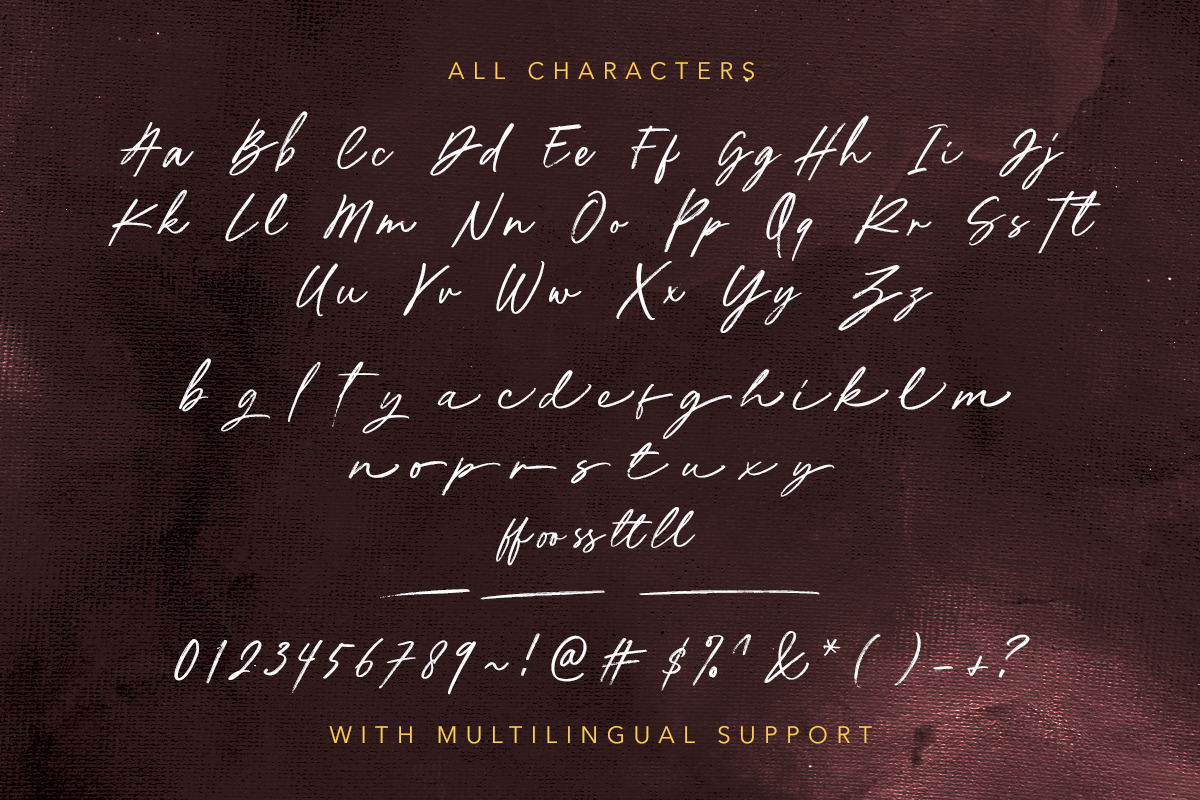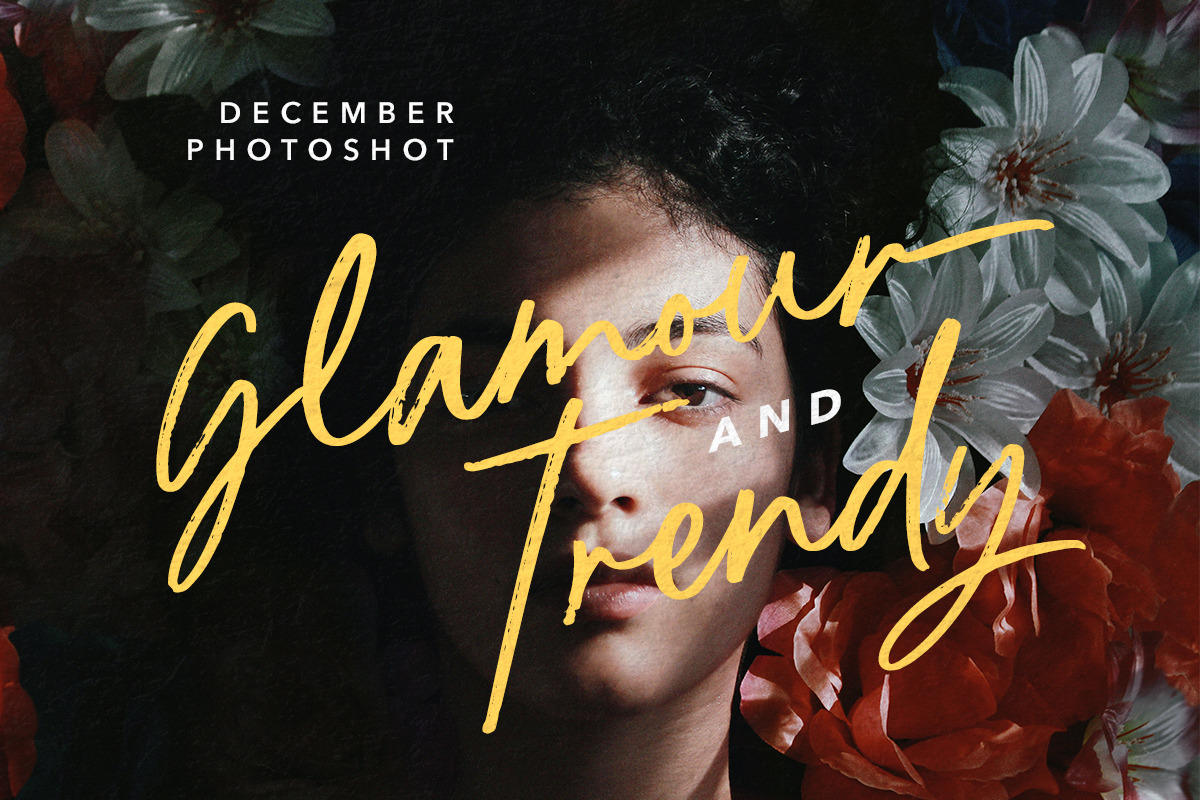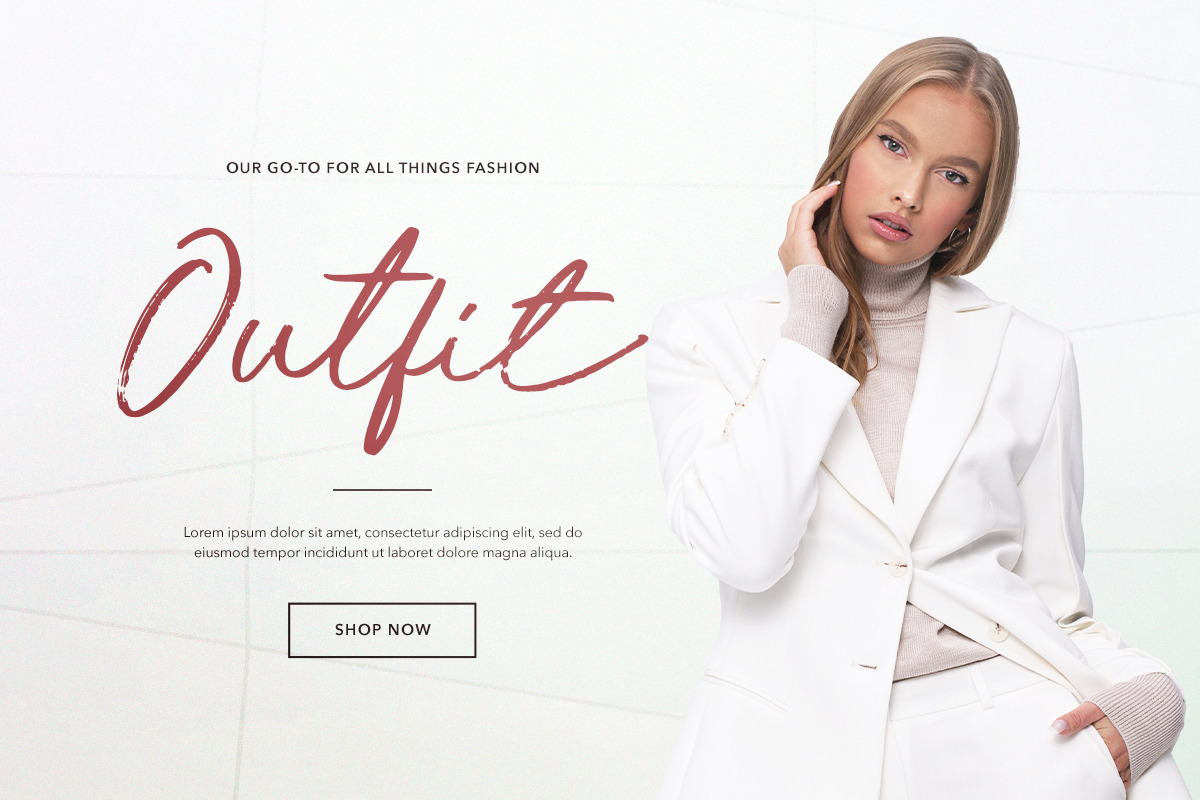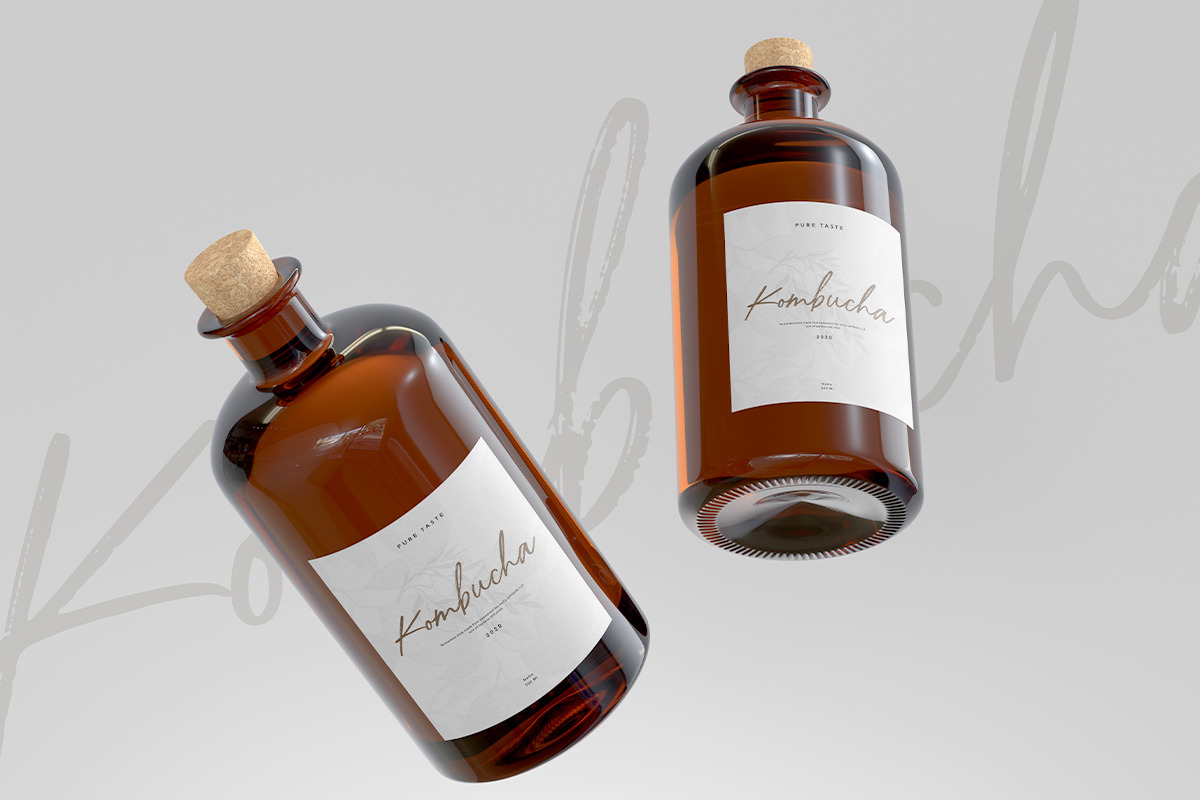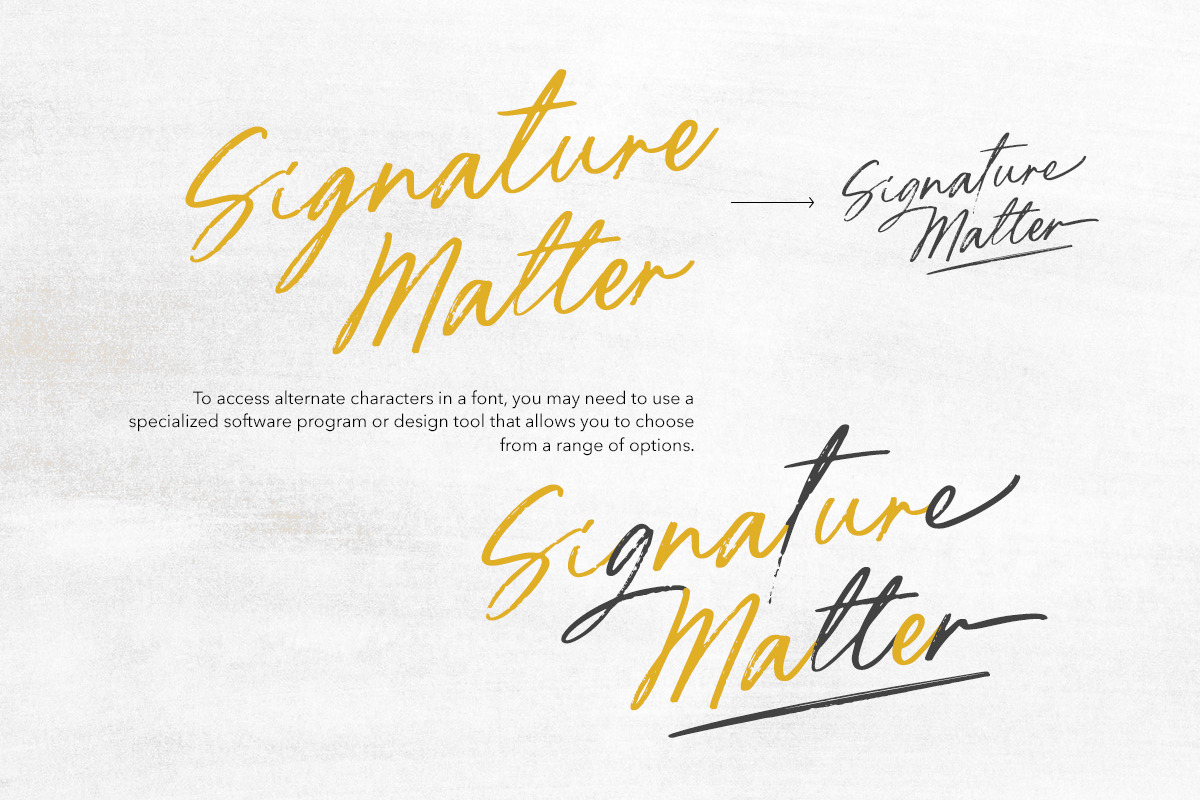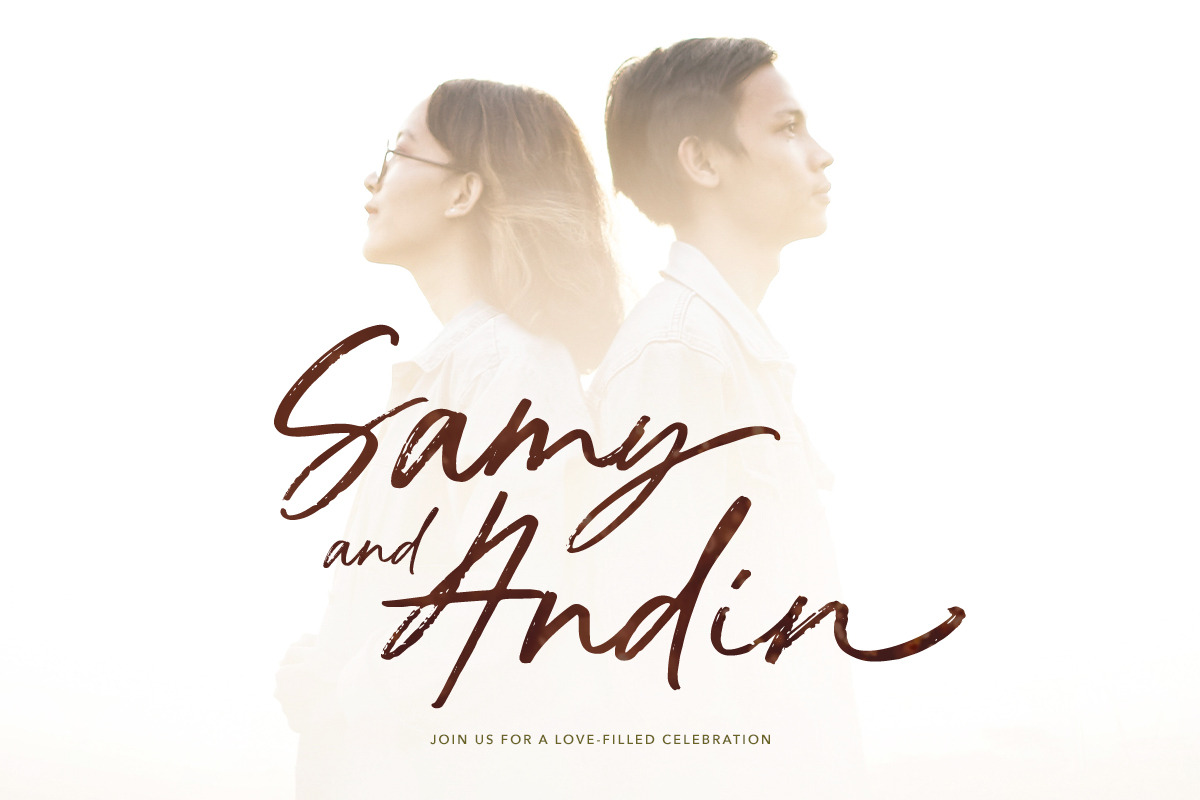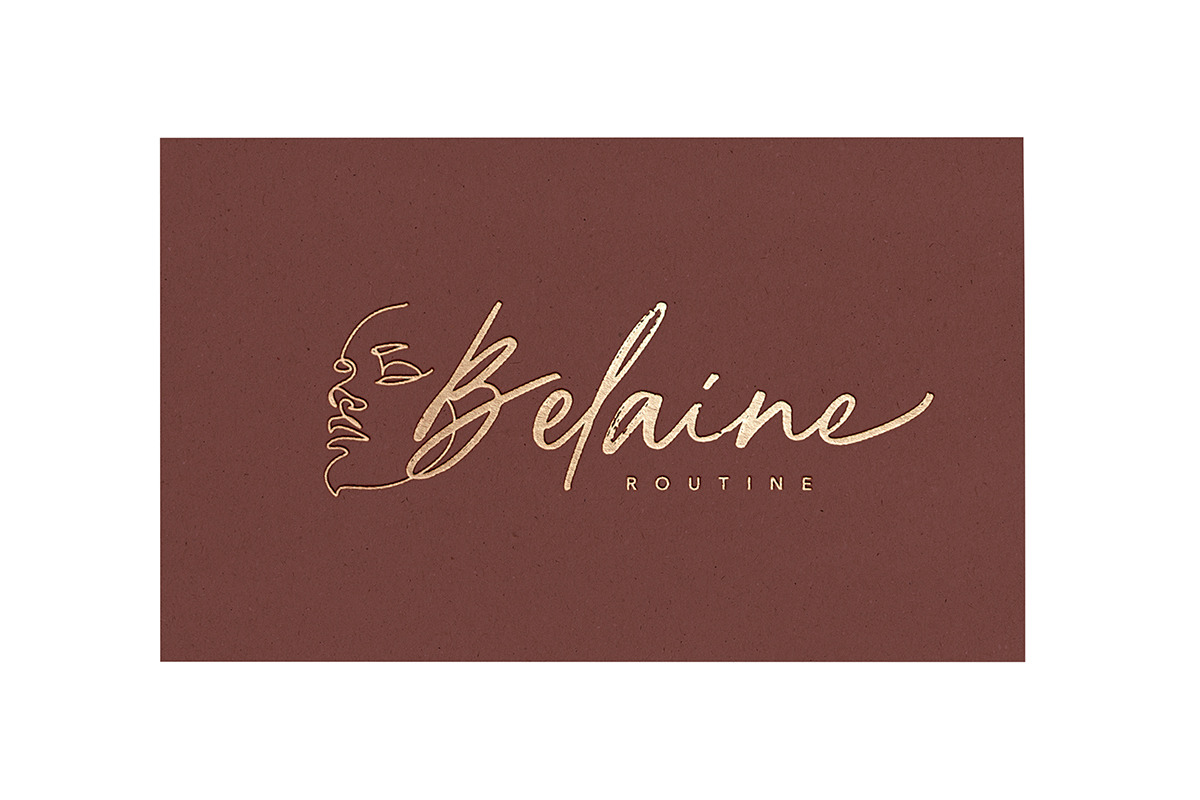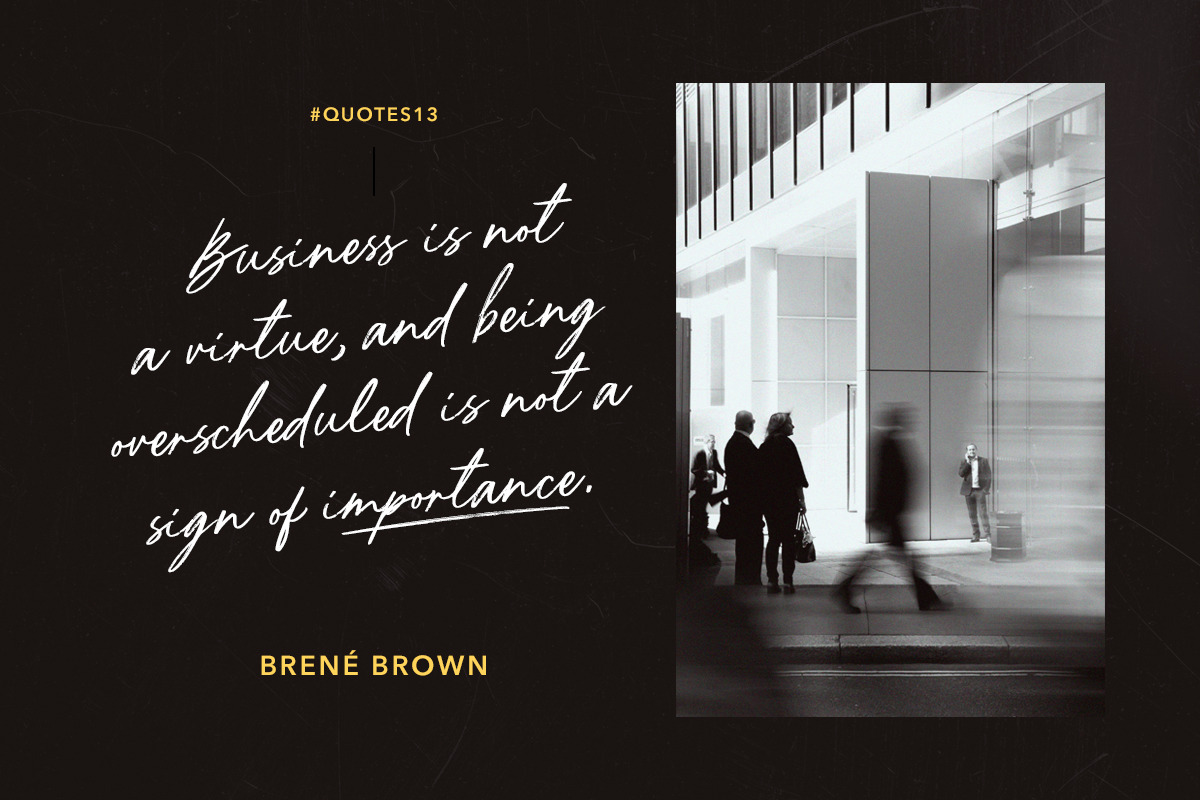
Ardelion - Signature Brush Script
Ardelion is a signature script with textured brush that contain stylistic alternate, underline, and ligatures to make your own signature or logo design. Ardelion You can use this font to make a logo for branding, beautiful fashion design, suitable for wedding invitation, or handwritten quote.
Foreign Languages Support: ÀÁÂÃÄÅÇÈÉÊËÌÍÎÏÐÑÒÓÔÕÖØÙÚÛÜÝàáâãäåæçèéêëìíîïñòóôõöøùúûüýÿ
PS: Type underscore + number (from 0 to 9). Or copy Some_5thing in preview bellow..